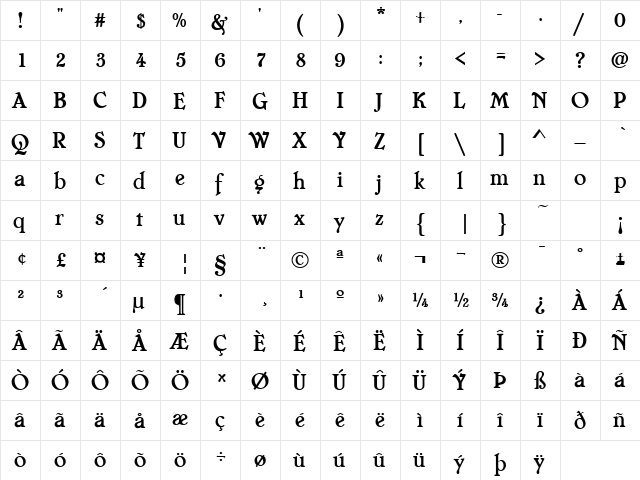
Chatelaine Regular
Design Context for Chatelaine Typeface
Chatelaine takes a measured approach to typography — its balanced proportions and neutral character make it a reliable workhorse for both digital and print work.